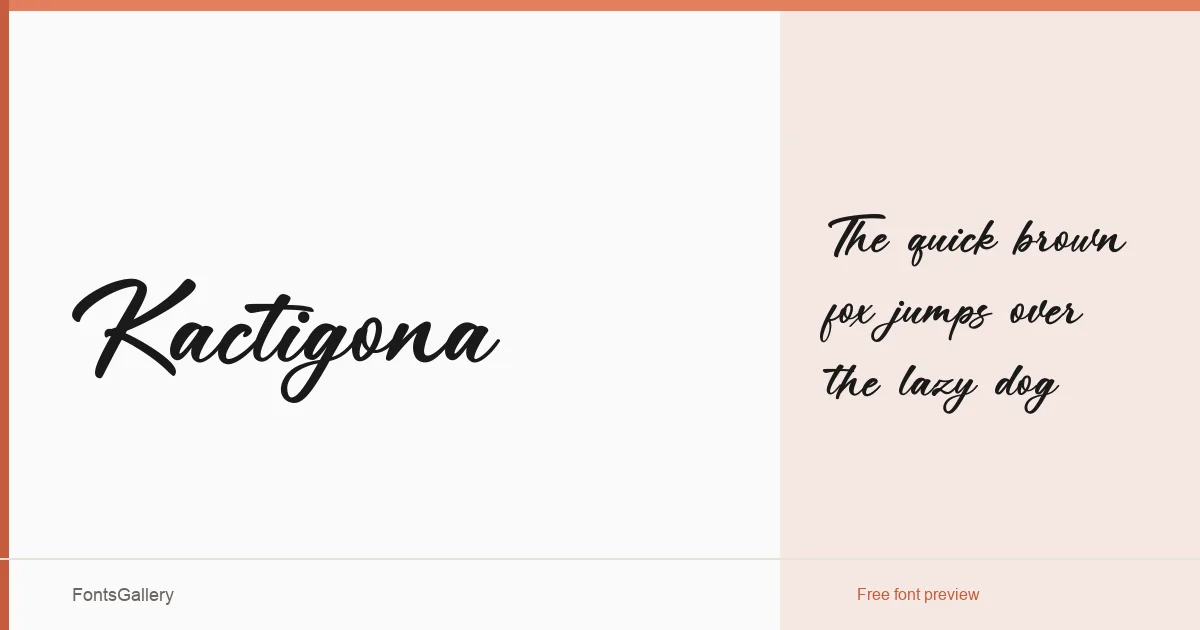
About Kactigona Font
Kactigona is a script typeface crafted by Bery Arisandi and Basnistudio, bringing together elegance and modern sensibility in every letterform. This font effortlessly blends romantic charm with contemporary style, making it a versatile choice for a wide range of creative projects. Its fluid script character gives it a distinctive personality that stands out across both print and digital applications.
Kactigona features graceful, flowing letterforms rooted in the script tradition, enhanced by a modern and refined touch that feels both sophisticated and approachable. The elegant curves and romantic energy of its characters create a sense of warmth and intimacy, while its clean execution ensures a polished, contemporary feel. Each glyph is crafted with careful attention to rhythm and continuity, giving the typeface a natural, hand-crafted quality.
Kactigona is ideally suited for logos, wedding stationery, branding projects, social media graphics, and greeting cards where an elegant and romantic tone is desired. Its expressive script style makes it especially compelling for luxury or boutique branding and heartfelt personal projects. For a balanced typographic pairing, consider combining Kactigona with Aresink for a harmonious script combination, or with Helvetica for a striking contrast between warmth and clean minimalism.